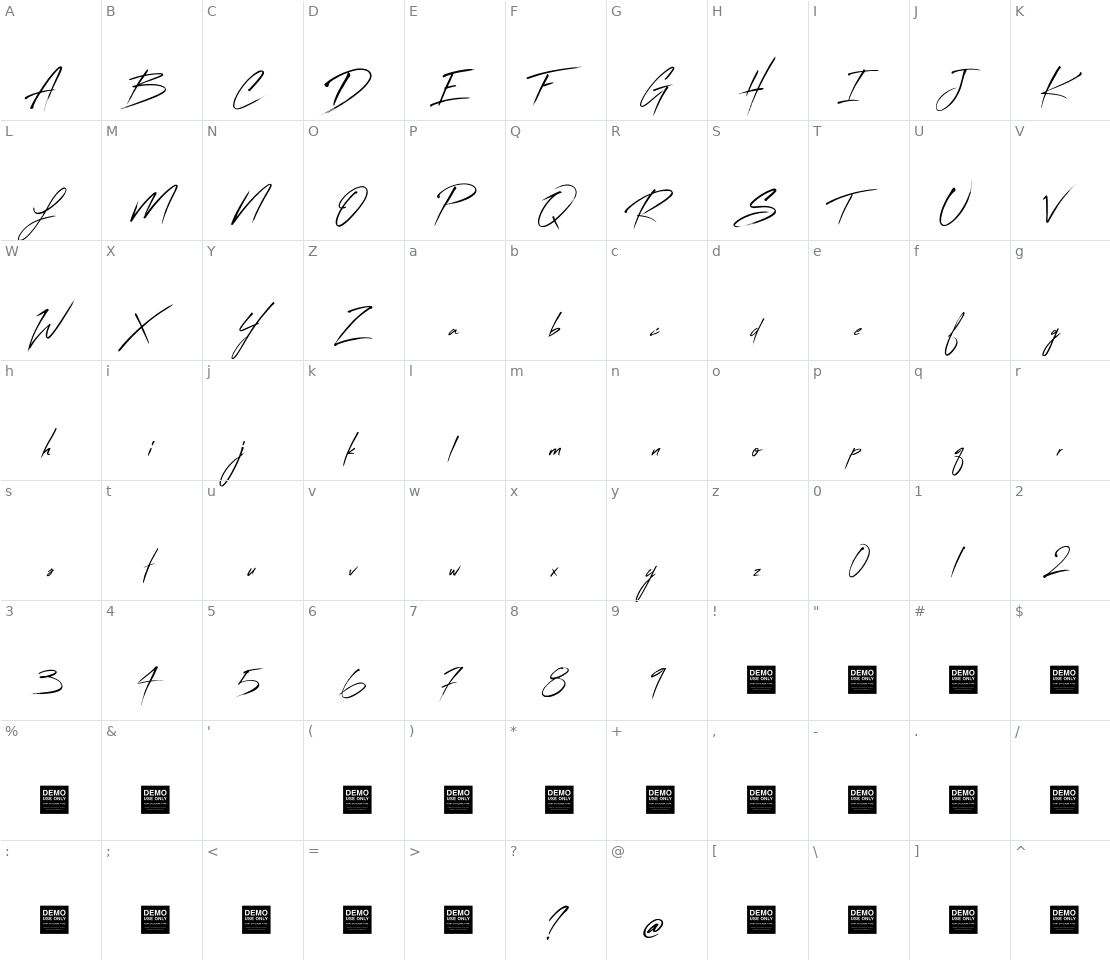
Flash Back
Flash Back from BLKBK Fonts is a thin, scratchy handwritten face that splits the difference between casual signature and refined elegance. The strokes feel quick and confident, with just enough texture to read as genuinely hand-done rather than digitally smoothed out. It works well for branding, headlines, and editorial use where you want something personal and modern without the stiffness of a formal script.